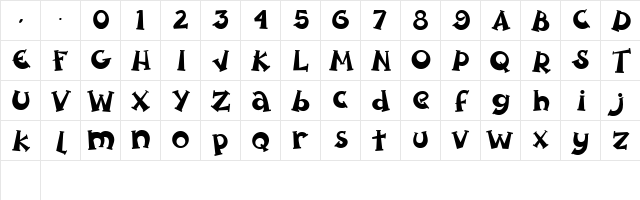
Spooky Pumpkin regular Regular
Designer: HandletterYean
Design Context for Spooky Pumpkin regular
Spooky Pumpkin regular is a composed and adaptable typeface that performs quietly and consistently across a wide range of design contexts.